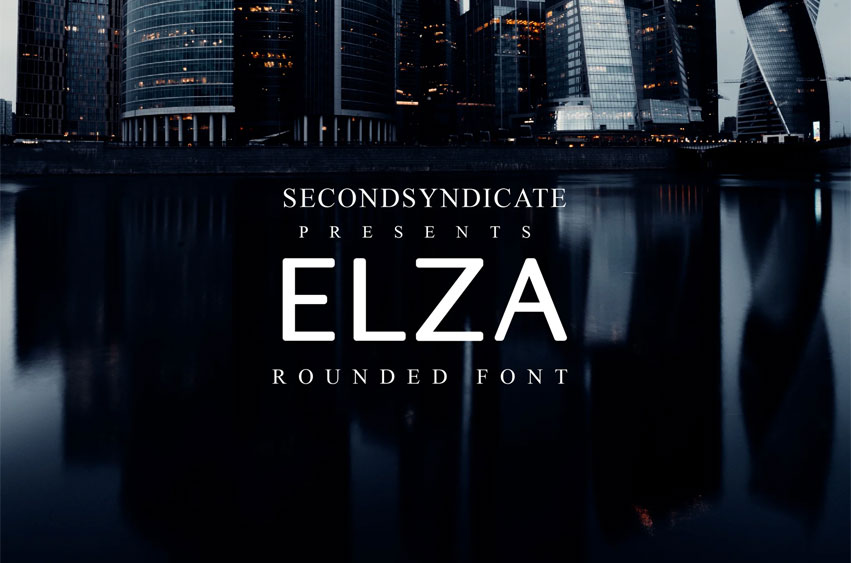
Elza Font
Elza Font Rounded font – Elza for your personal or business purpose. It is suitable for flyers, posters, novels, letterheads, or any design requirements you want to be awesome.